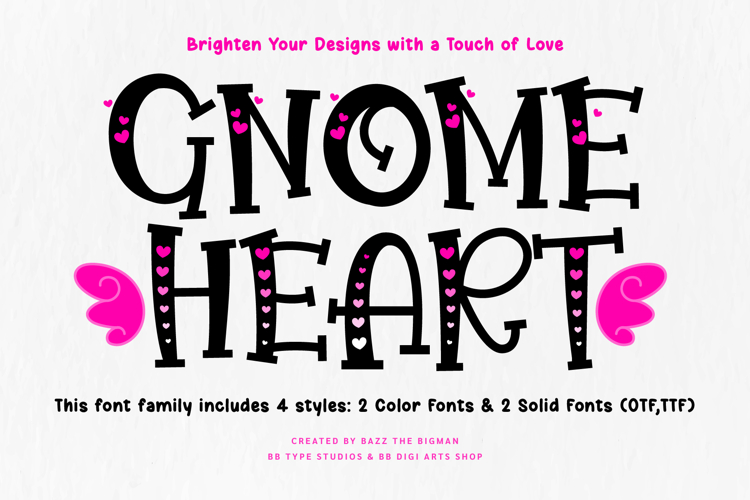
Gnome Heart
Gnome Heart is a lovely and playful font family designed with love and happiness in every letter.
Perfect for Valentine’s Day, romantic designs, cute crafts, gifts, cards, apparel, and cheerful creative projects.
This font family includes 4 font styles in total:
– 2 Color Fonts with built-in adorable heart decorations
– 2 Solid Fonts in black that can be easily recolored to any color you like
With sweet heart details, rounded playful shapes, and versatile styles, Gnome Heart is ideal for logos, quotes, invitations, packaging, stickers, printables, and social media designs.
Add a touch of love and joy to your designs with Gnome Heart 💕